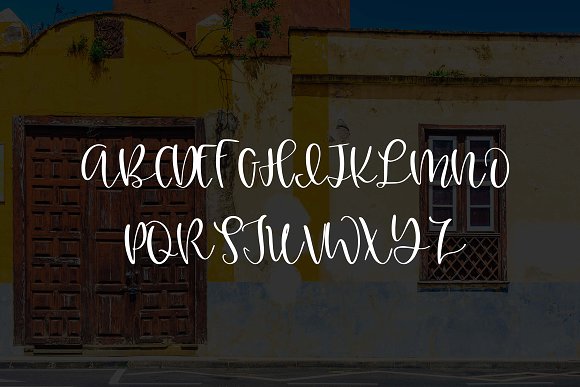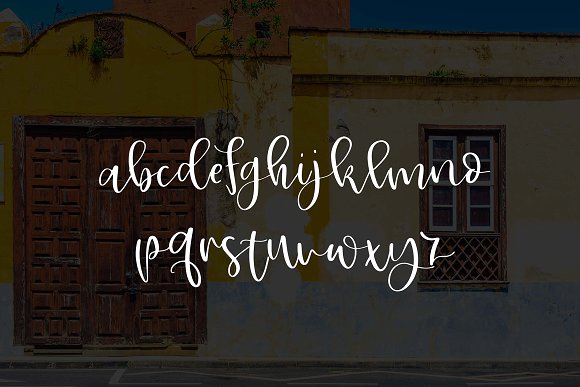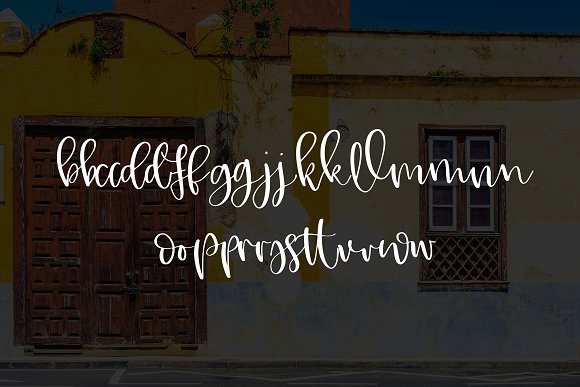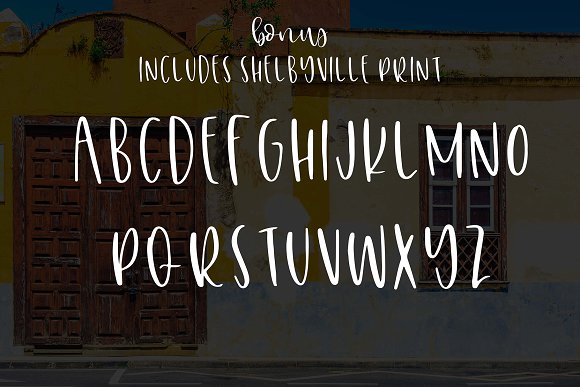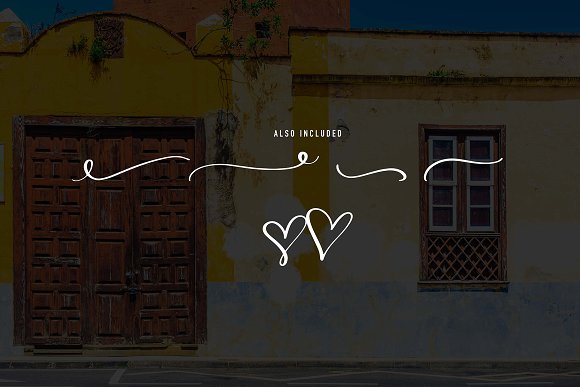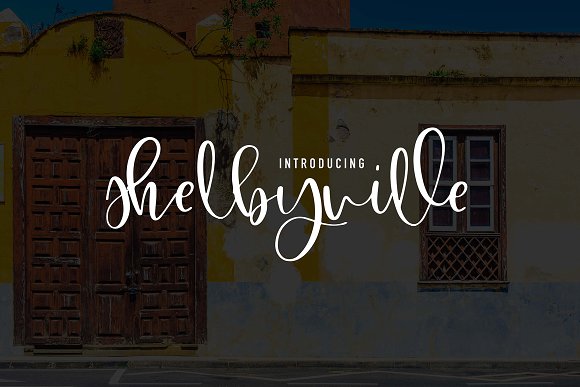
Shelbyville Font
Shelbyville is a fun script that would work great for cards, invitations, weddings, wooden signs & more! Includes script upper, lower, doubles, punctuation, numbers and bonus elements. Print includes all uppercase letters (no numbers or punctuation.